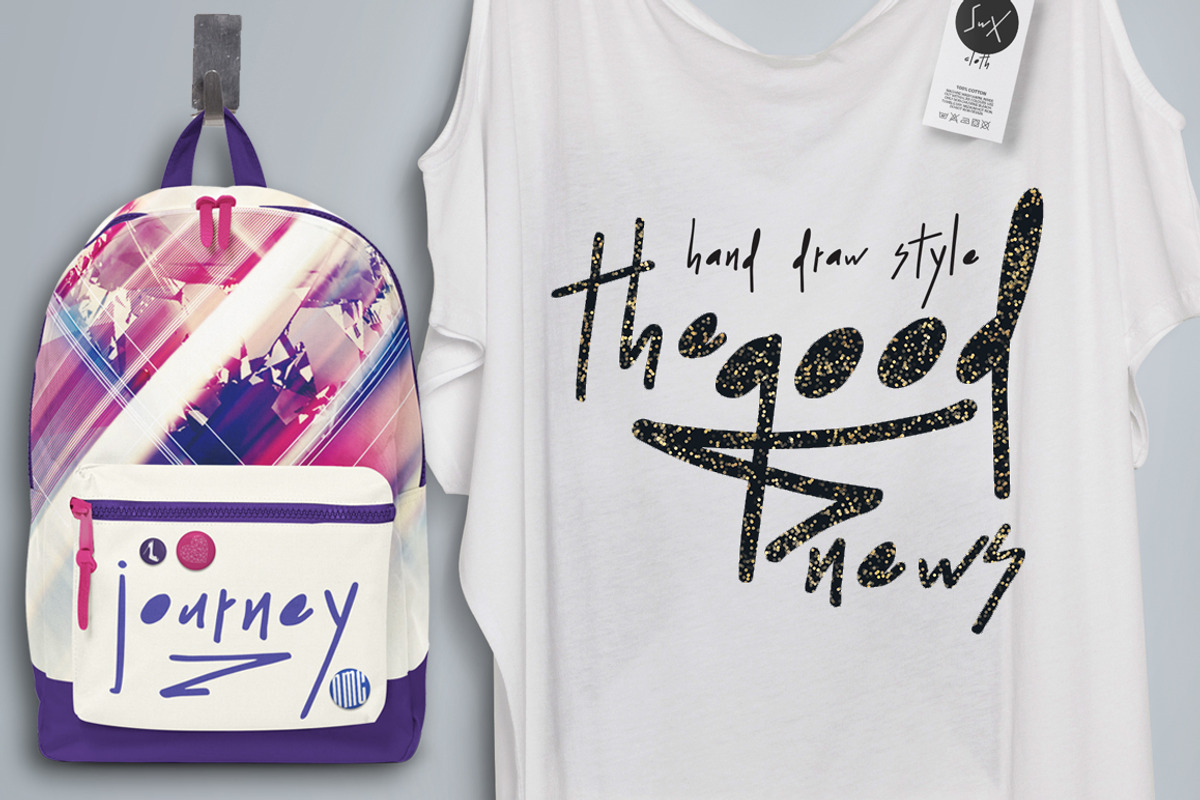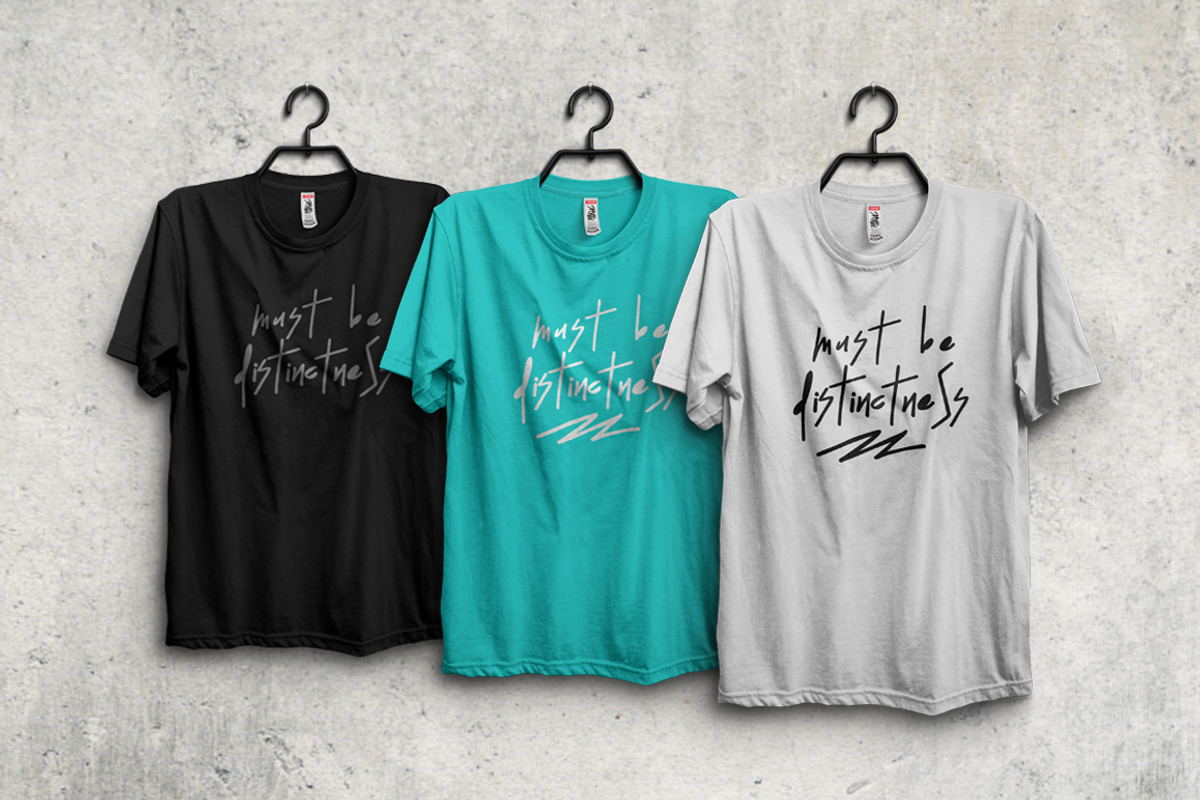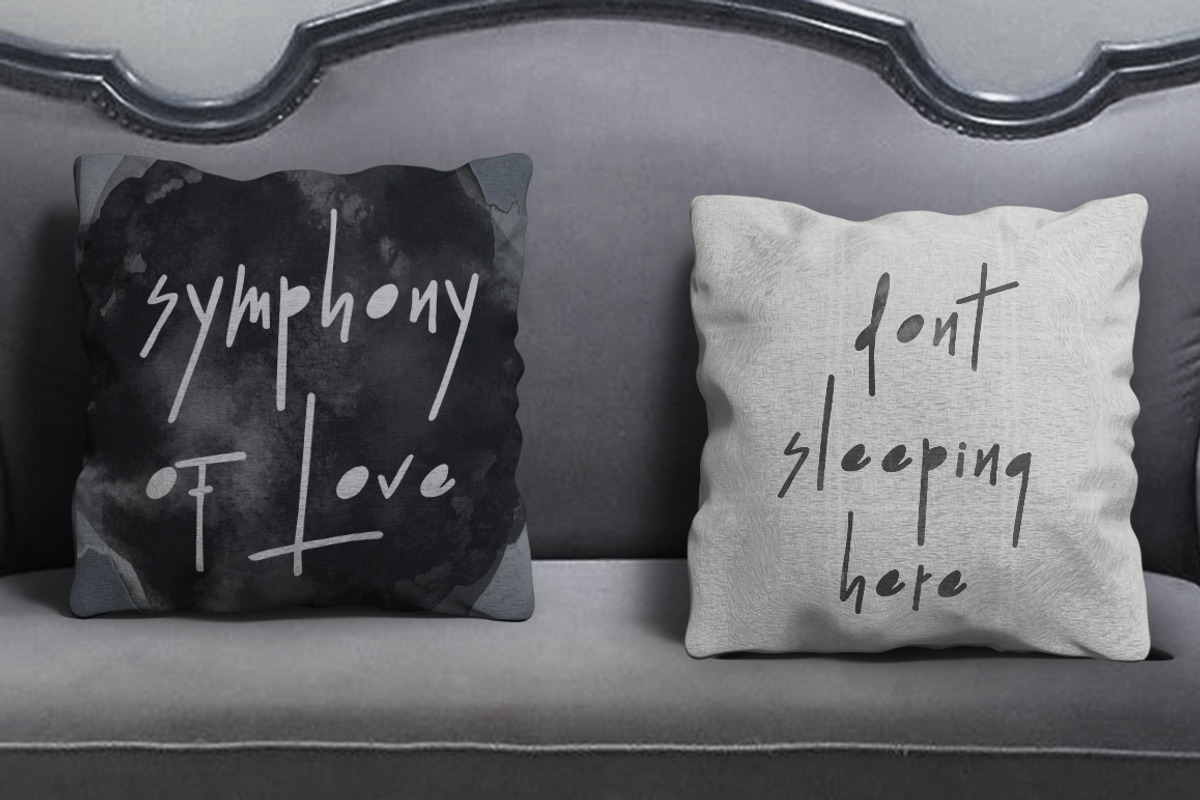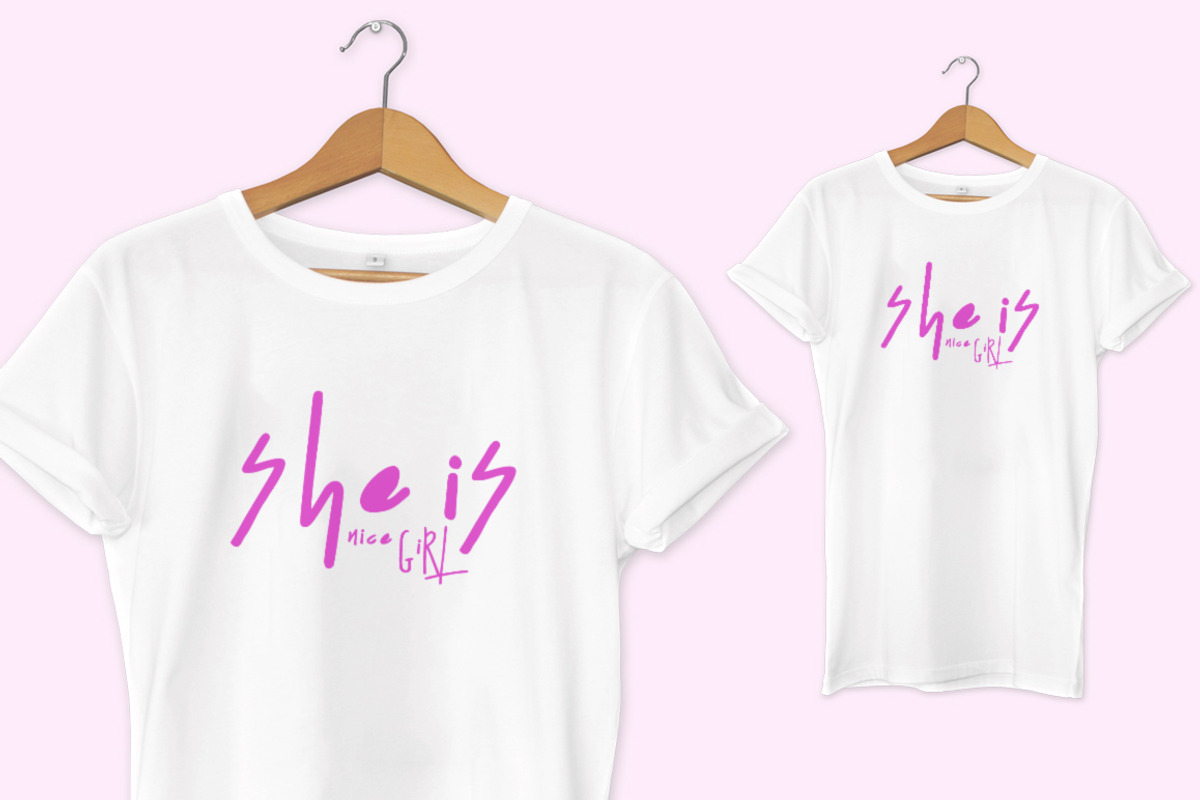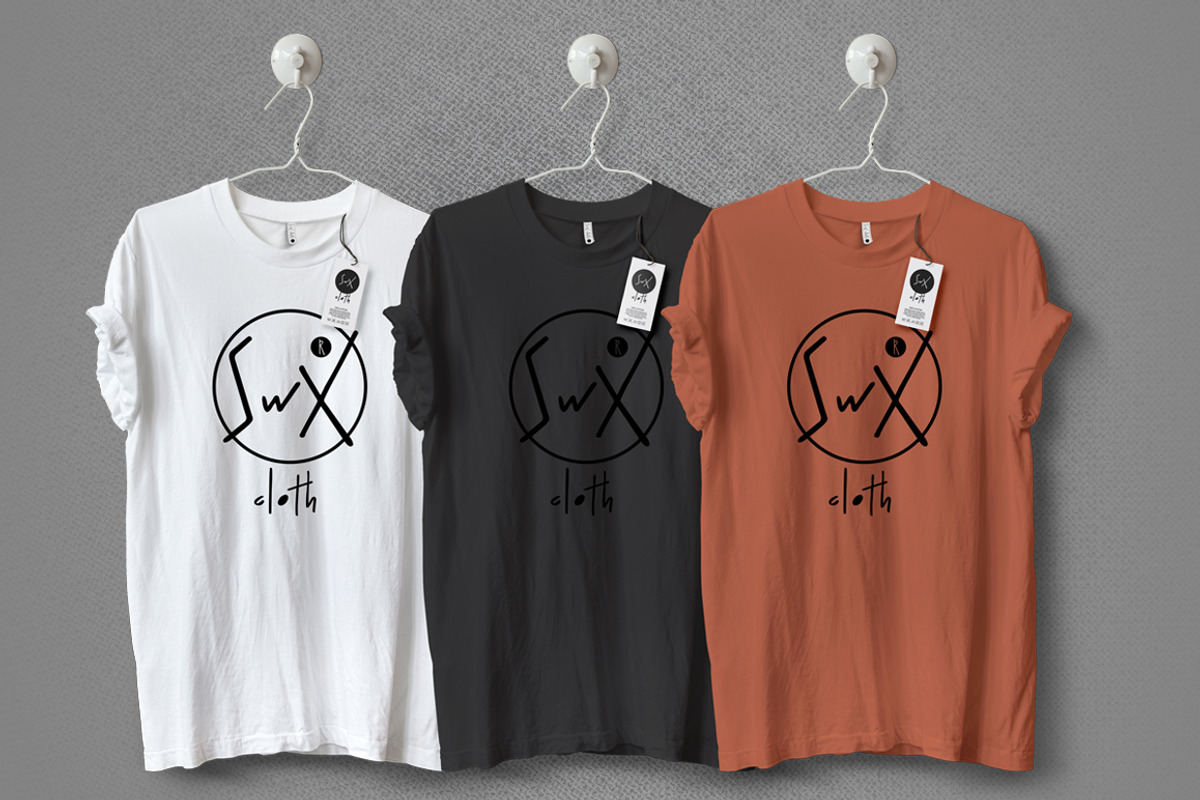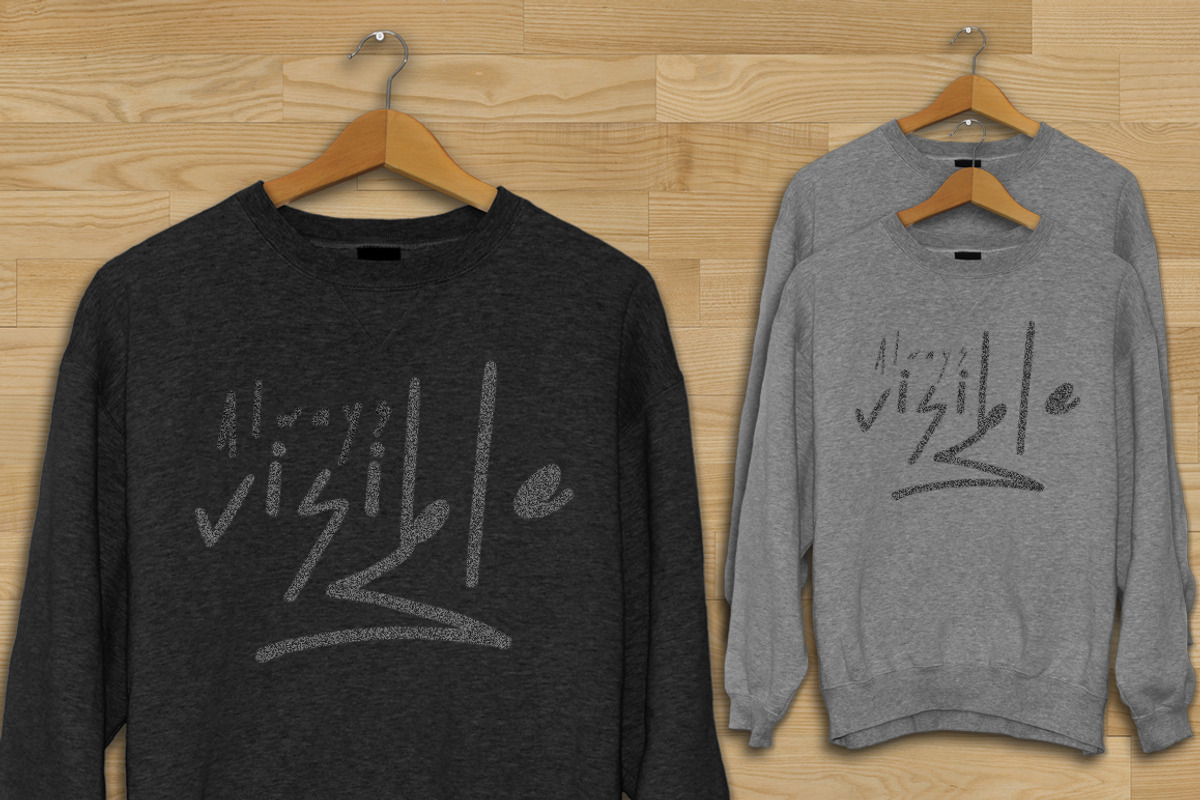
The Good News // handwritten font
The Good News // handwritten font by Siwox Studios is a font selected for branding, posters, packaging, typography.
The Good News // handwritten font by Siwox Studios fits naturally into Branding, posters, packaging, typography.